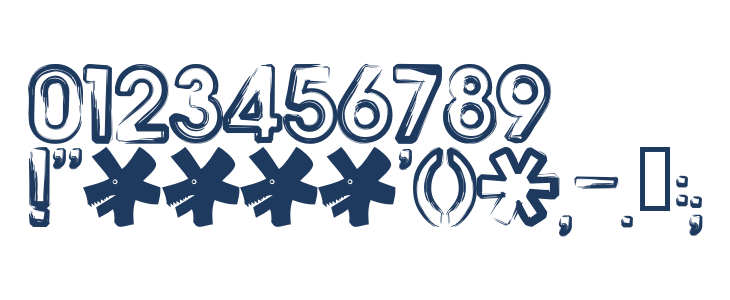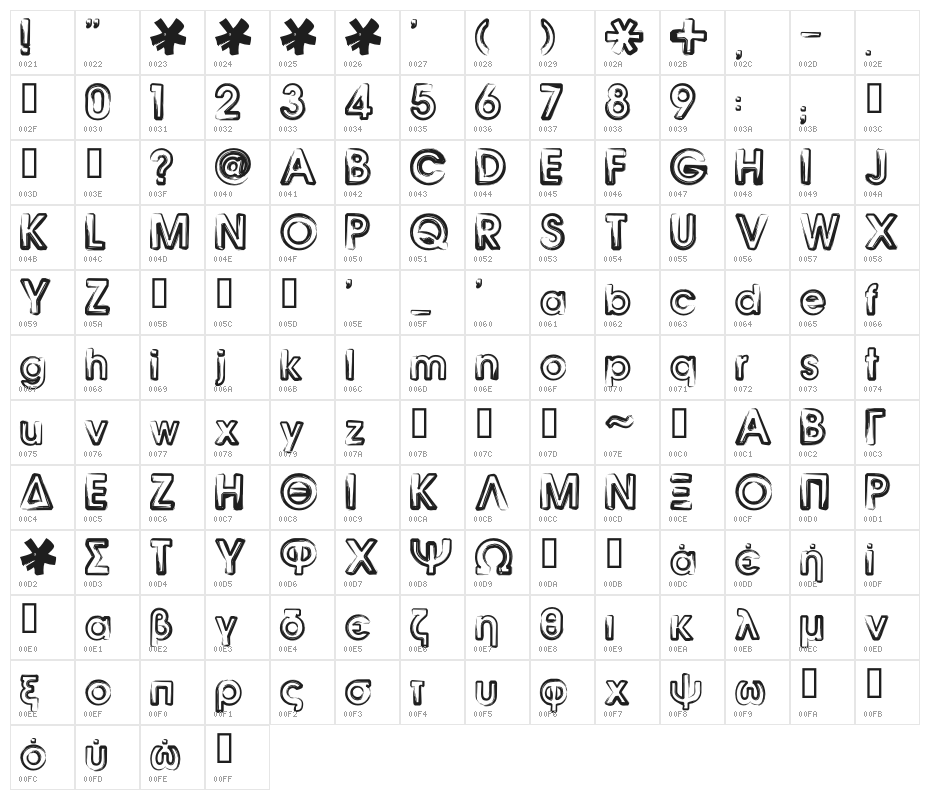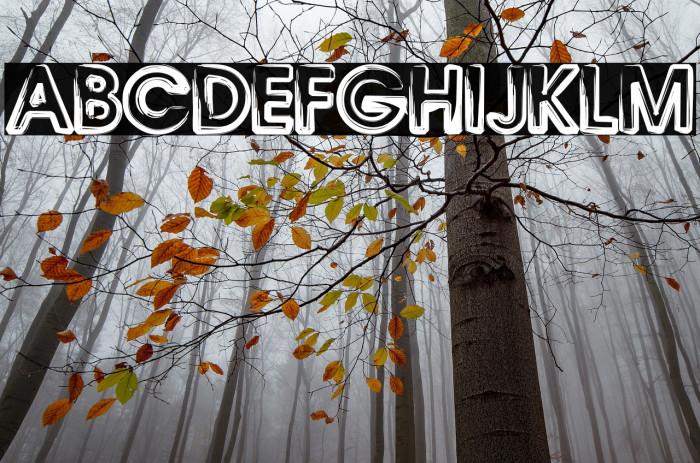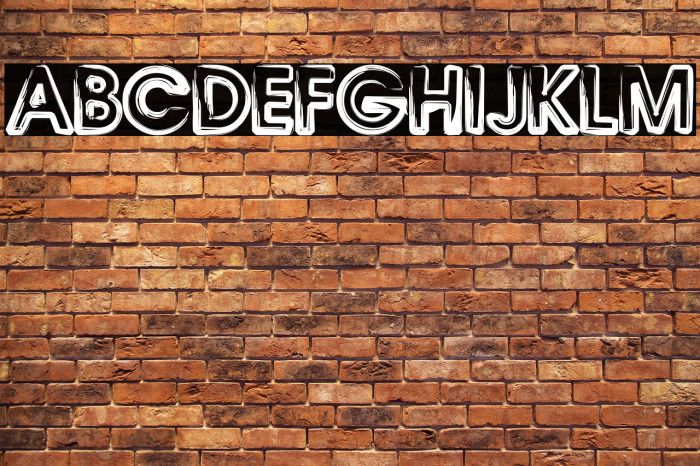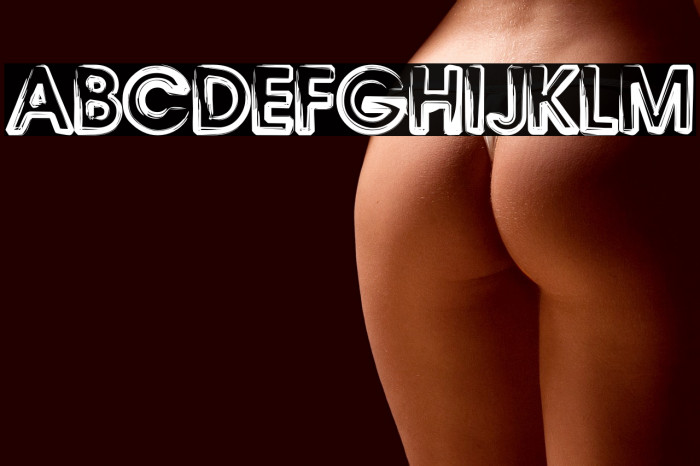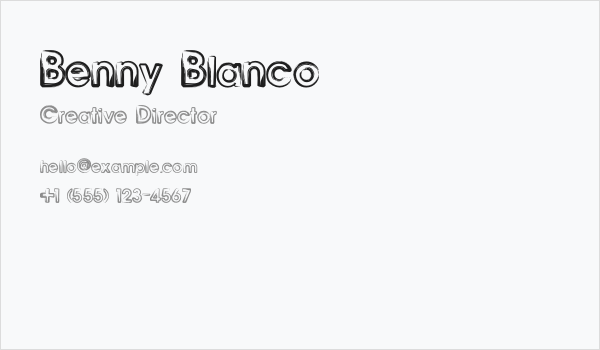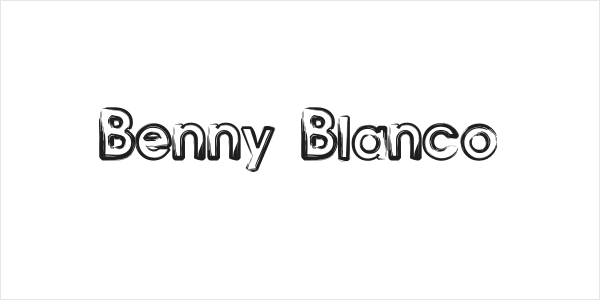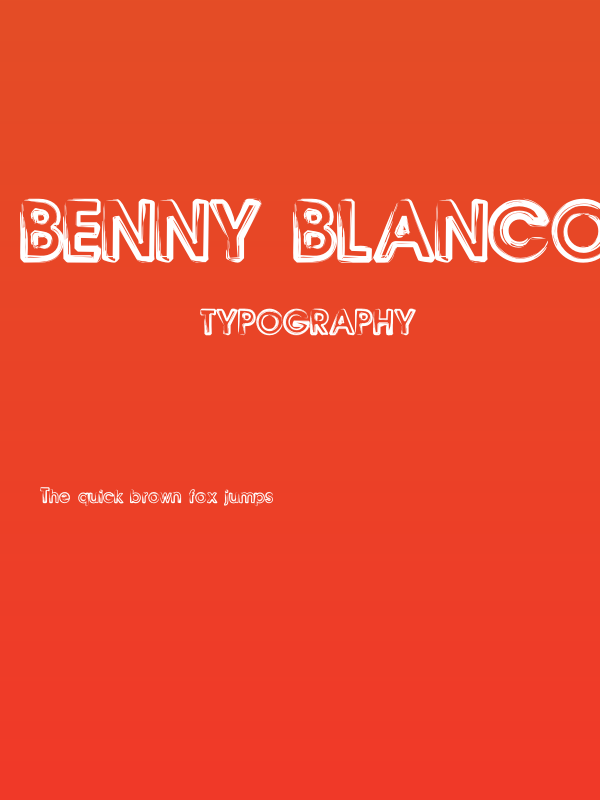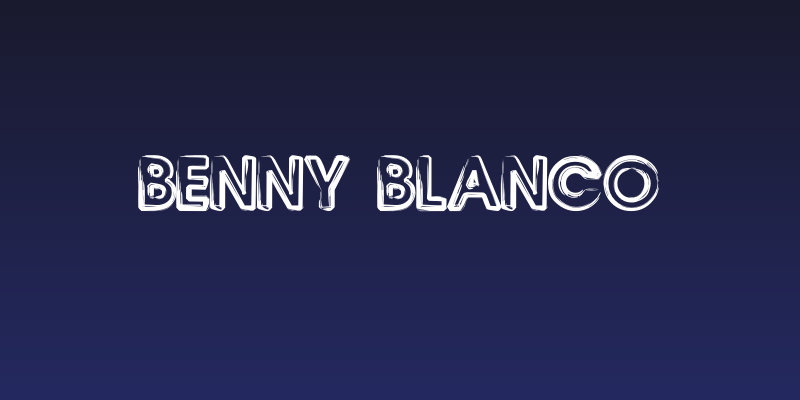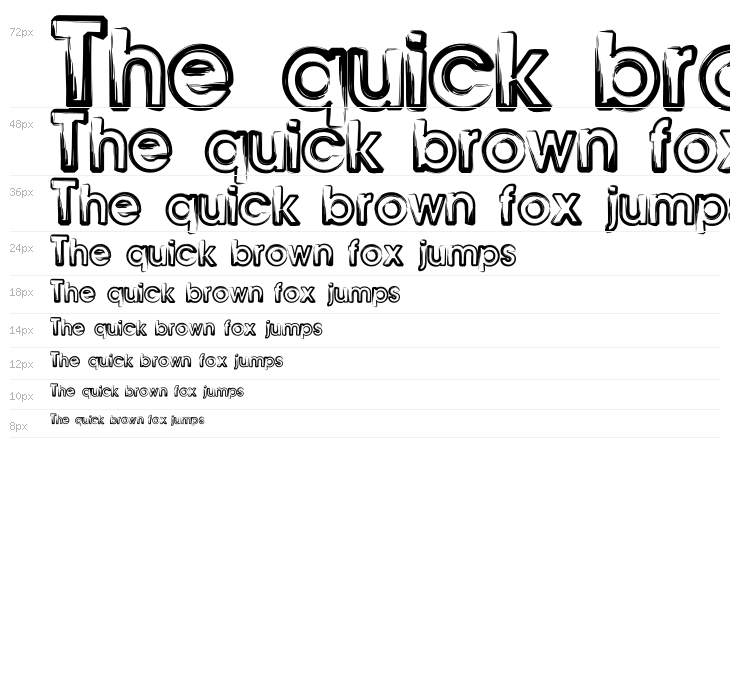
Benny Blanco Font
Benny Blanco Description
This font features a bold, playful design with a three-dimensional effect that gives it a dynamic and eye-catching appearance. The characters are outlined with a thick black stroke, creating a strong contrast against the inner white space. The style is reminiscent of comic book lettering, with a modern twist that adds depth and texture. The uppercase and lowercase letters maintain a consistent style, while the numerals and special characters complement the overall aesthetic. This font is perfect for projects that require a fun and engaging visual impact.
Proposed ProjectsIdeal for comic books, posters, children's books, and playful branding.